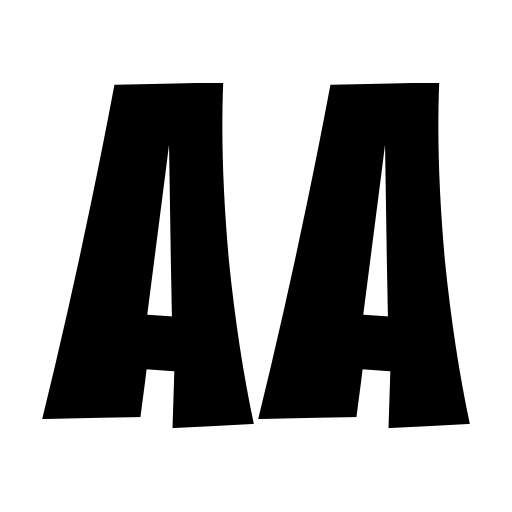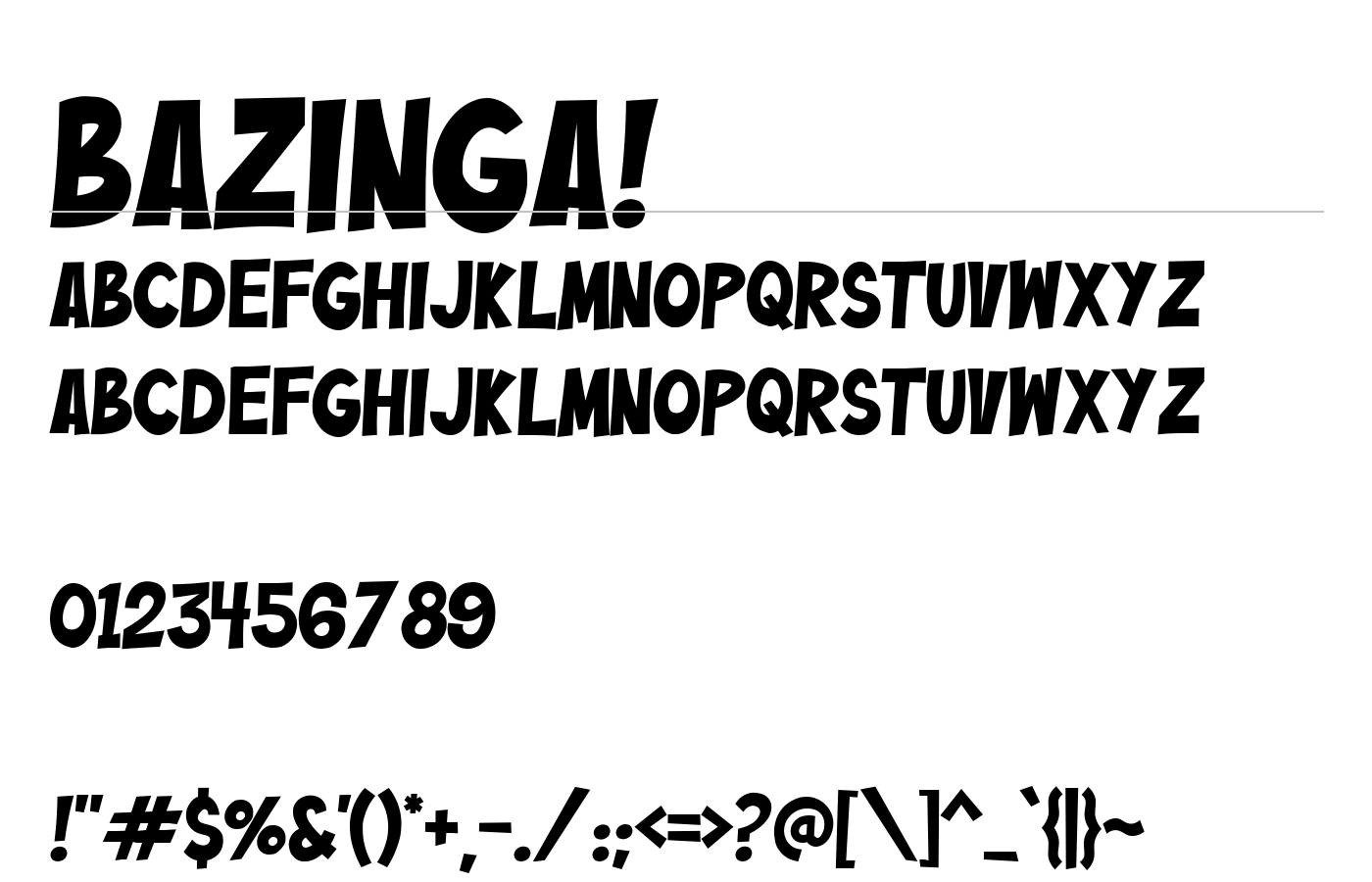
Bazinga! is a bold, playful sans serif font with a slightly condensed and irregular letterform that gives it an energetic, hand-drawn comic style. Its thick, uneven strokes and quirky shapes make it ideal for fun and informal designs, perfectly suited for headlines, posters, and branding that wants to convey a lively and dynamic personality. This font works best in contexts where attention-grabbing and lighthearted expression is needed, making it a great choice for entertainment, children’s media, and casual branding.
Bazinga! Font
About Bazinga! Font
| Font family | Bazinga! Font |
| Designer | Ferry Ardana Putra |